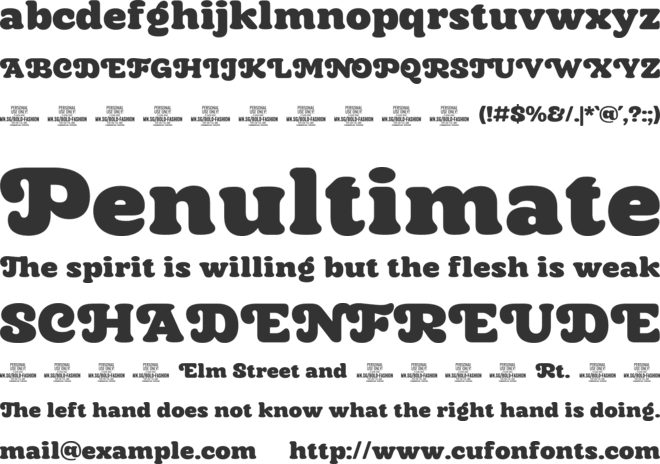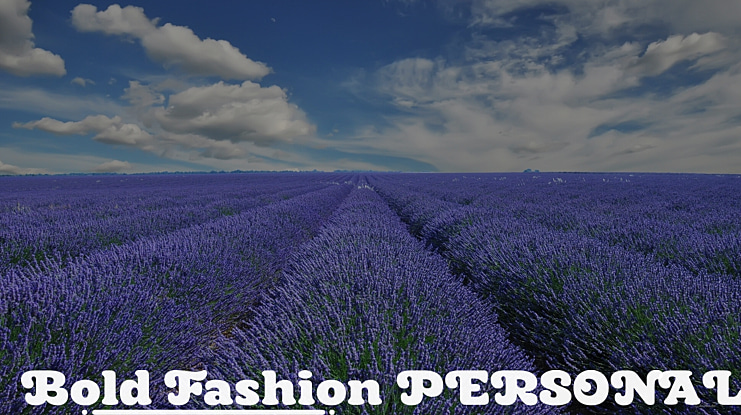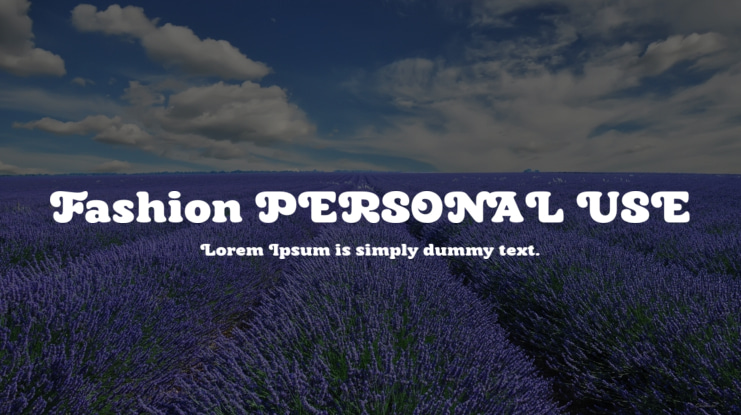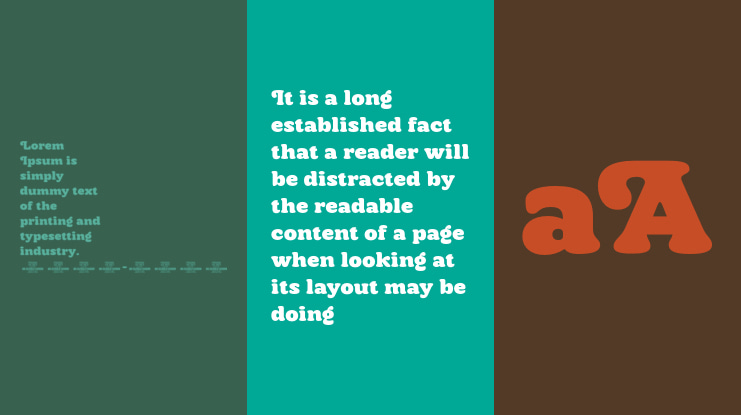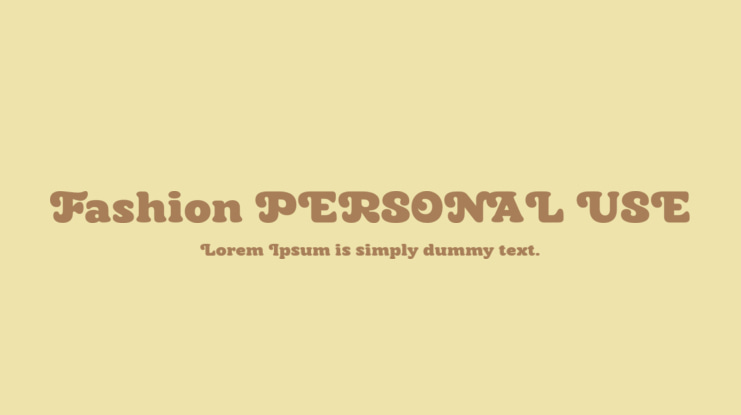
Fashion PERSONAL USE Font
Bold Fashion is a bold slab-serif font inspired by the disco era. Its funky design, featuring soft and rounded serifs, captures the essence of retro style. Each letter has a heavy presence, yet they dance with a lively and comfortable rhythm, reminiscent of catchy beats from the 70s.